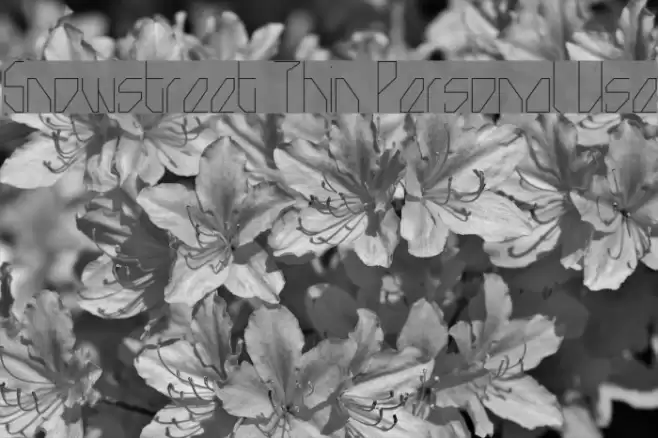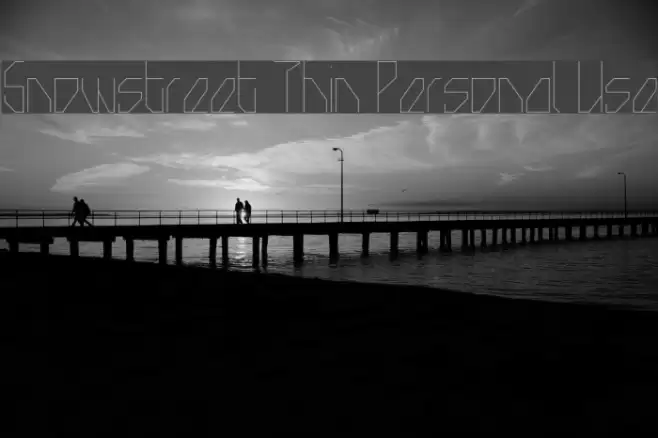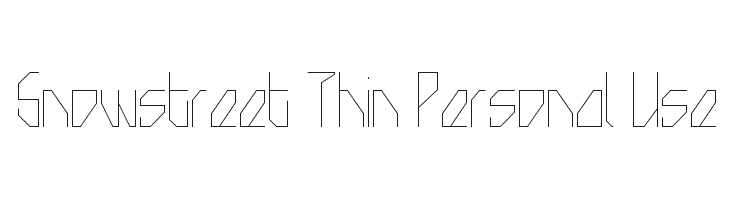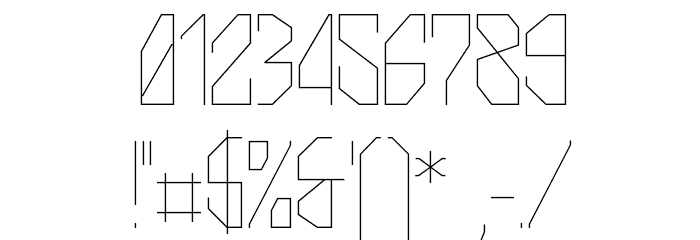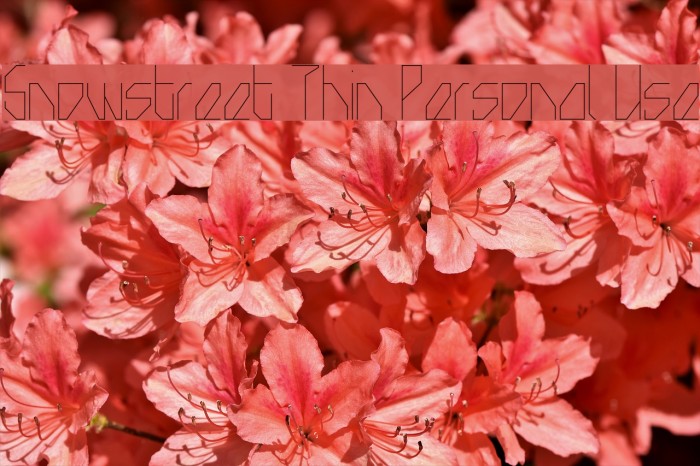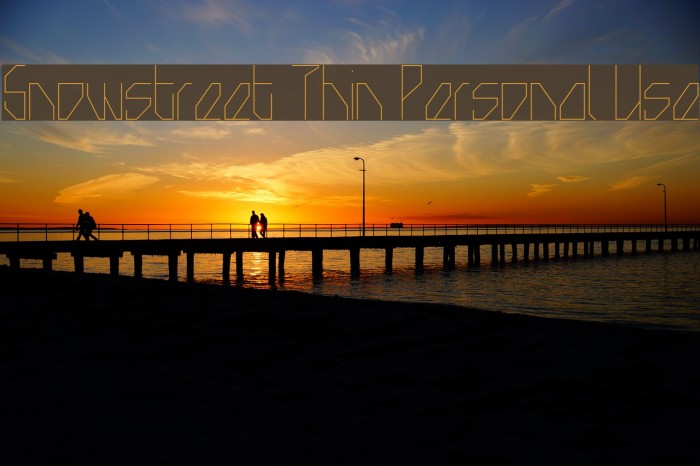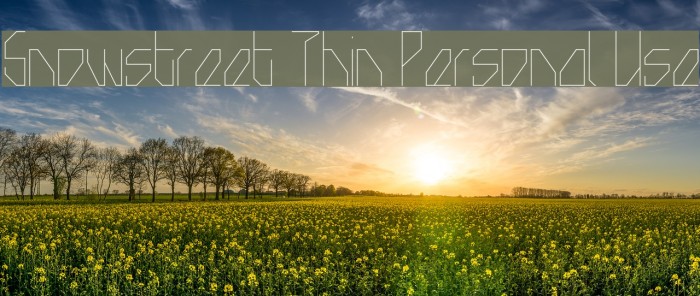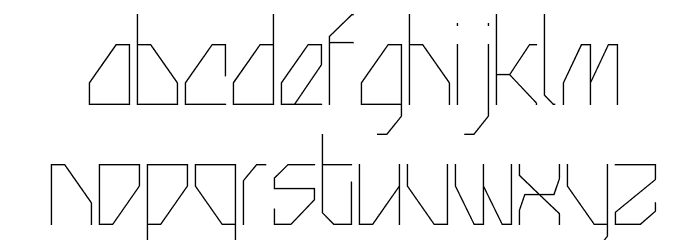
Snowstreet Thin Personal Use Font
Snowstreet Thin Personal Use Description
This font features a geometric and angular design, characterized by its thin, linear strokes that create a modern and minimalist aesthetic. The characters are constructed with straight lines and sharp angles, giving it a futuristic and technical appearance. The uppercase and lowercase letters maintain a consistent style, with a unique approach to letterforms that emphasizes simplicity and precision. The numerals and special characters follow the same design principles, ensuring a cohesive look across all elements. This font's distinct style makes it suitable for projects that require a contemporary and edgy feel.
A geometric, angular font with thin, linear strokes for a modern look from Futuristic fonts.
- Proposed Projects: Ideal for tech branding, modern posters, digital interfaces, and futuristic designs.